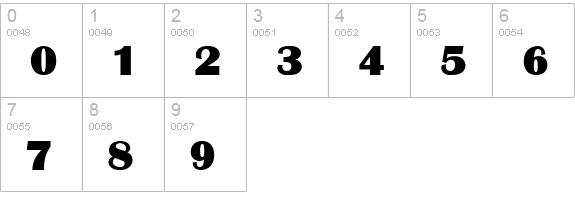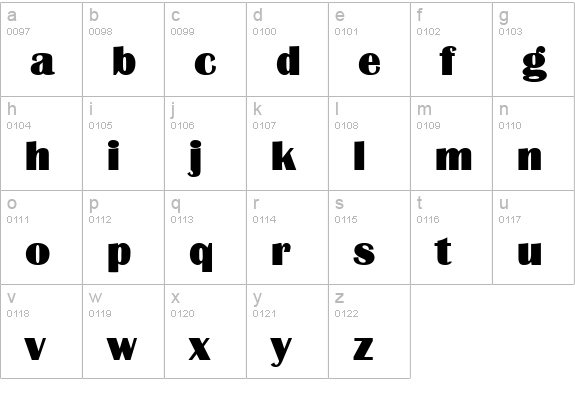
Burin Display SSi font is a stylish and elegant typeface that exudes sophistication and charm. With its clean lines and classic design, this font is perfect for creating professional and eye-catching designs. Whether you're working on a branding project, a logo design, or a print layout, Burin Display SSi font will add a touch of class to your work. The best part is that Burin Display SSi font is available for free download at FontsMarket.com. This means you can easily access this beautiful font and use it in your projects without any cost. Don't miss out on the opportunity to enhance your designs with the timeless beauty of Burin Display SSi font. Download it today and elevate your creative projects to the next level.